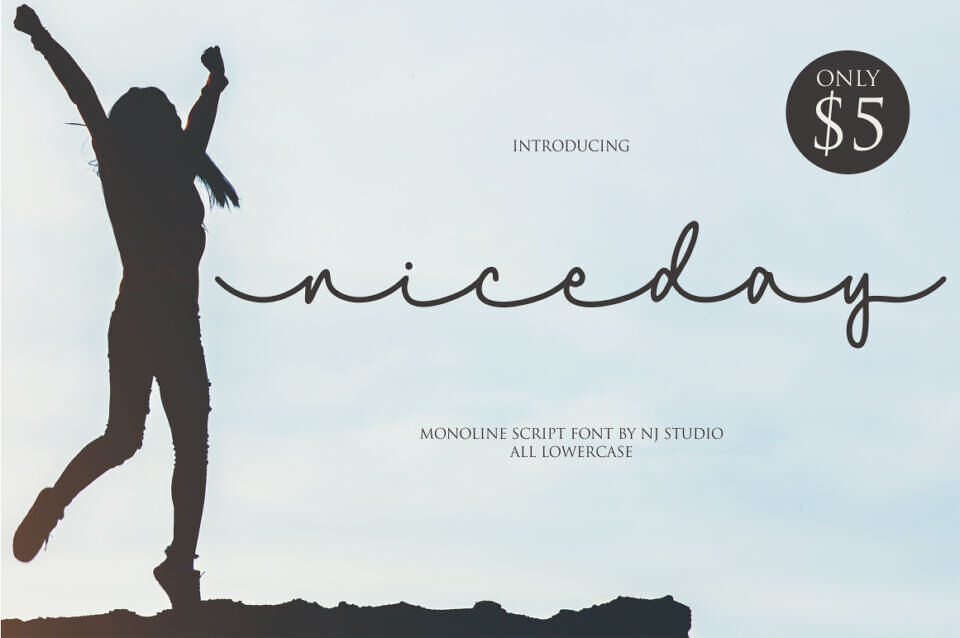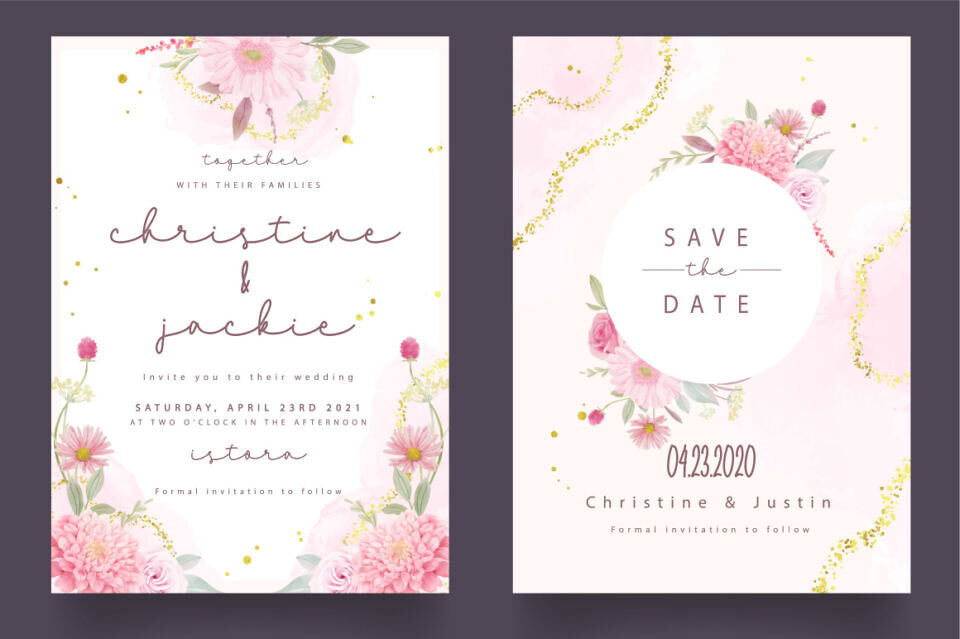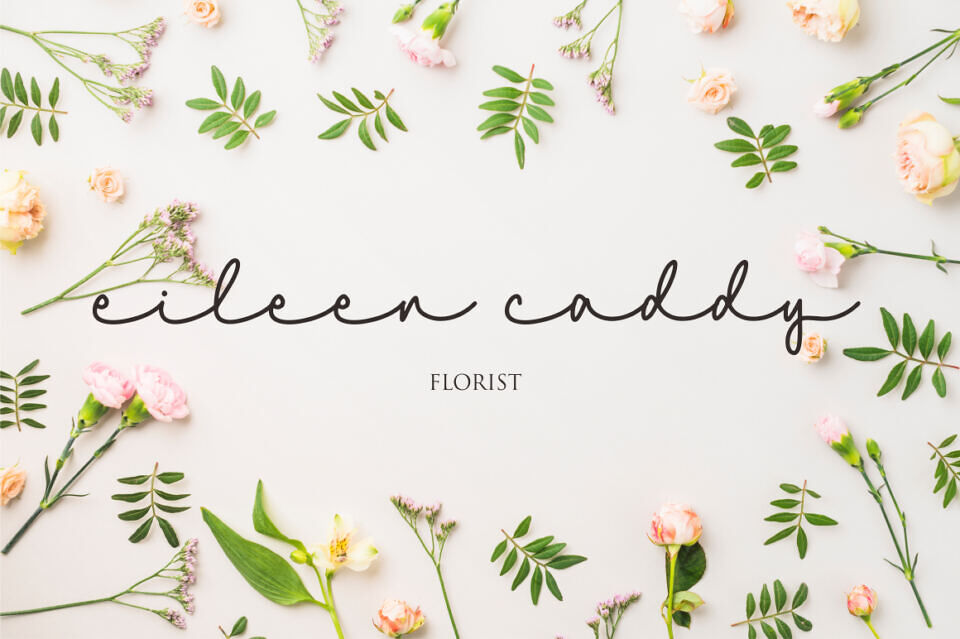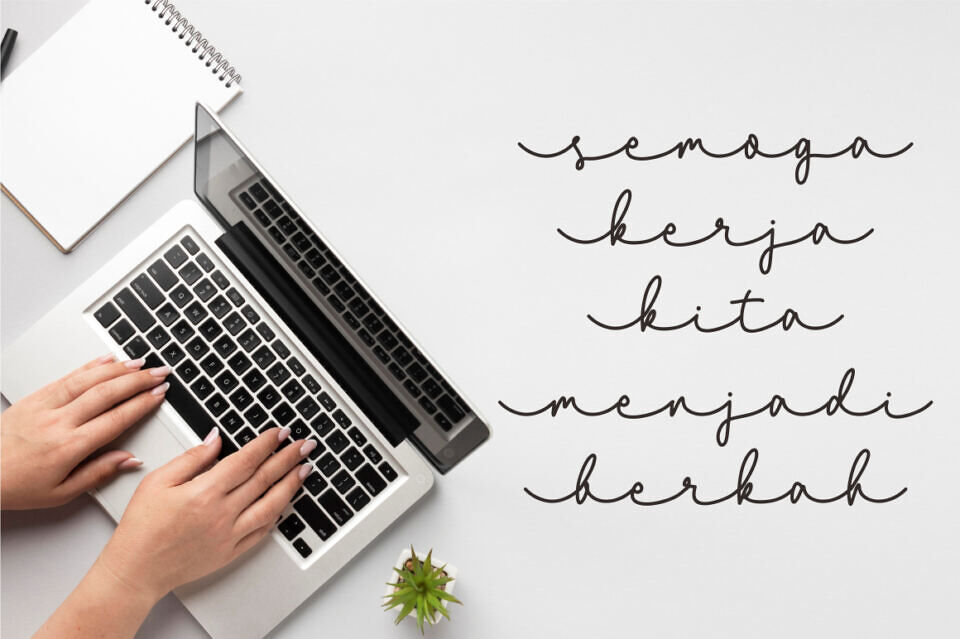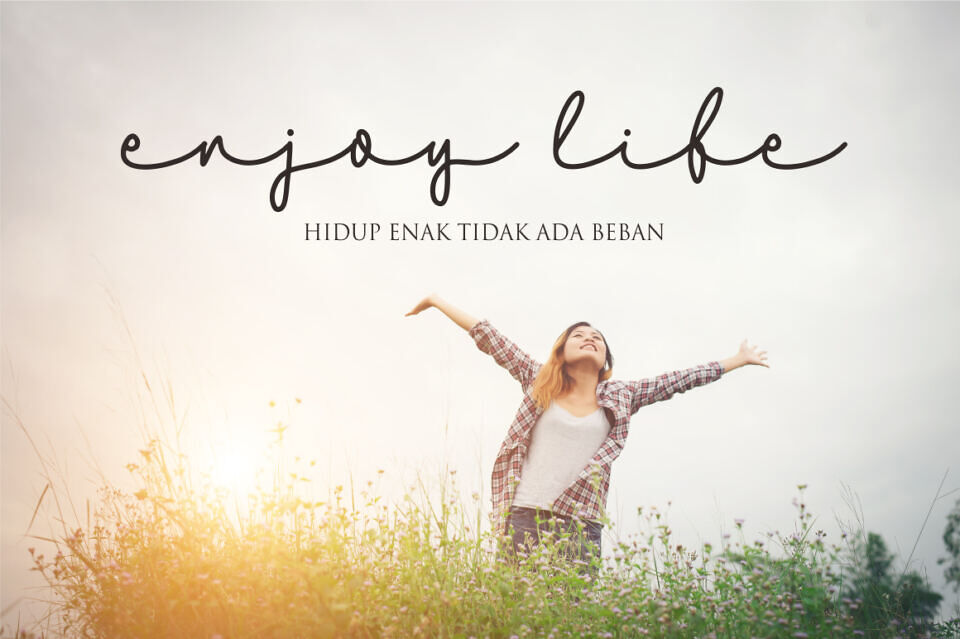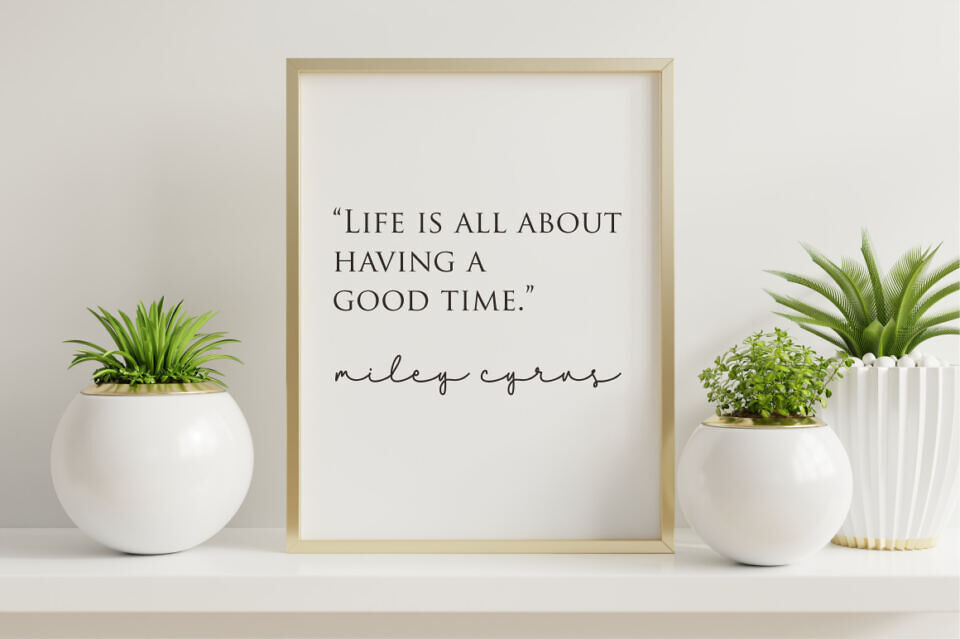
The Niceday font exudes elegance with its flowing style. It’s perfect for adding a personal touch to wedding invitations, cards, and logos.
The font’s varying baseline, smooth lines, and beautiful glyphs create a sophisticated look, making it ideal for designs that require a handwritten feel, and adding a touch of refinement to any product.